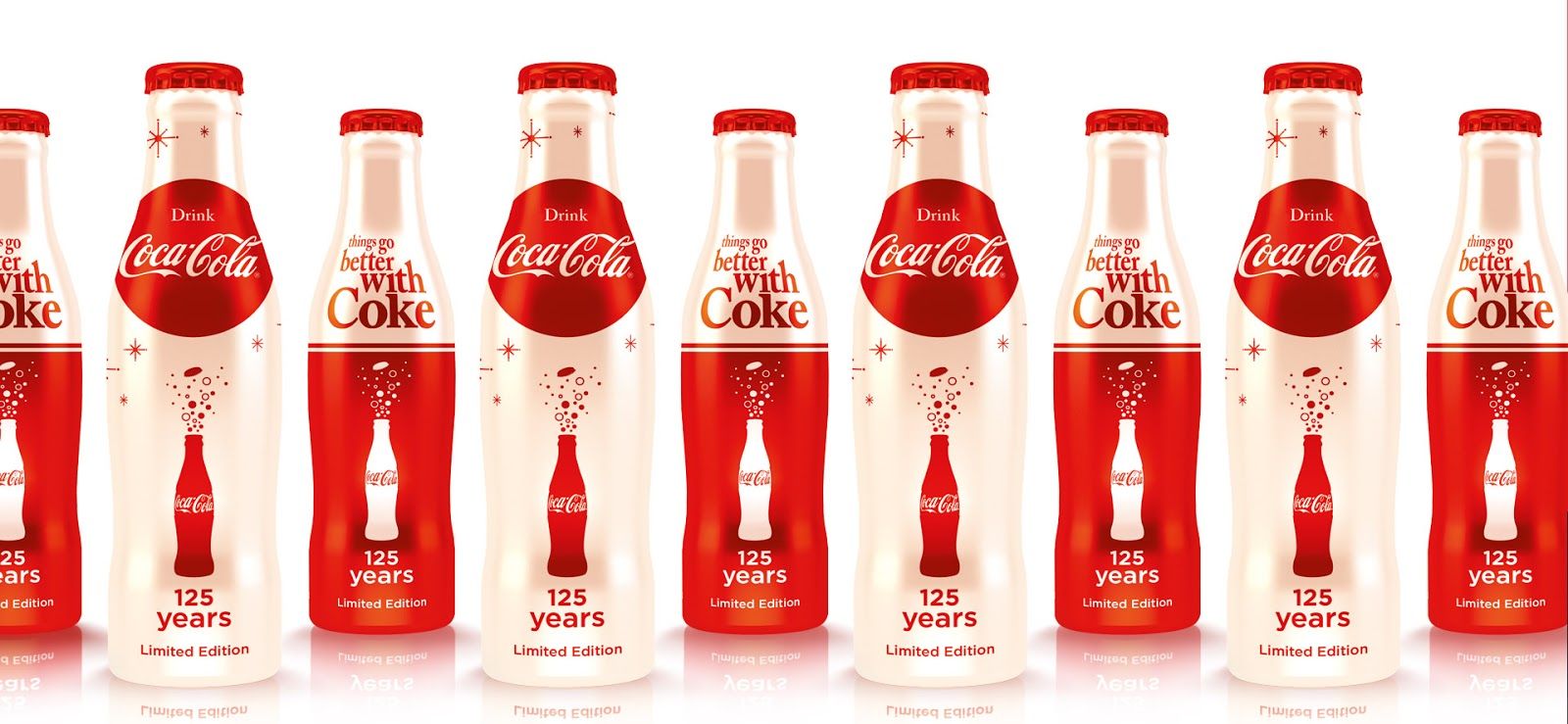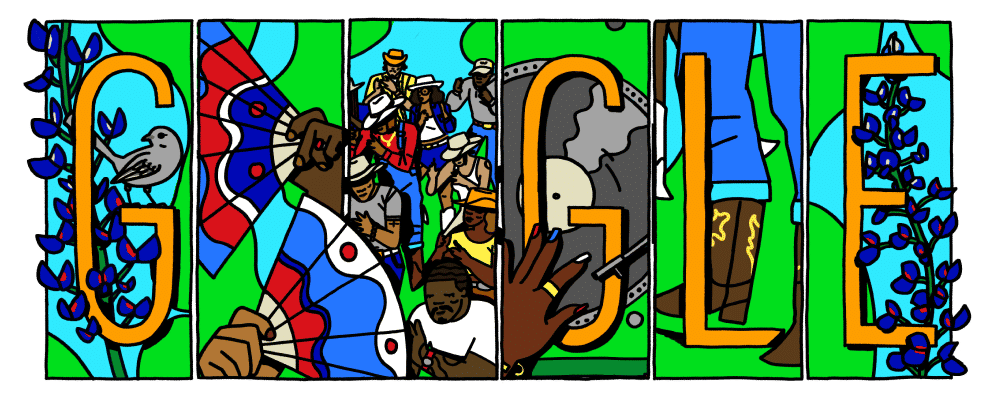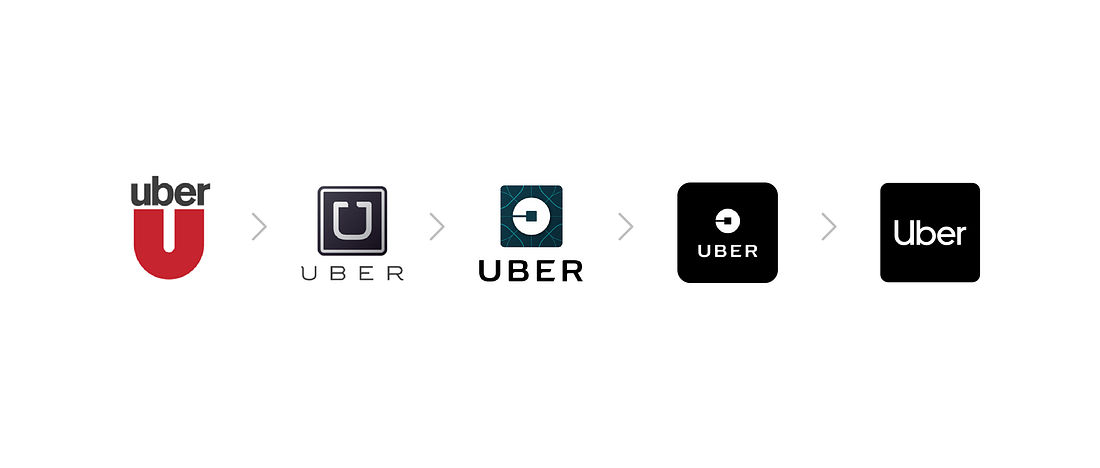
Dynamic logo helps brands navigate constant change by allowing visual identities to evolve in shape and color while staying true to their core. The difficulty for brands lies in maintaining their relevance without compromising their identity.
Exploring essential concepts and influence offers a glimpse into how flexibility naturally strengthens brand presence across industries and platforms.
Key Takeaways:
- Brands update their visuals to stay current while preserving their core identity through innovative designs.
- Updating logos enables brands to stay current while preserving their authentic identity.
- Adaptive branding approaches boost brand visibility across all industries.
- Visual identities that are adaptable have a greater effect on many devices.
Breaking Down the Concept of Dynamic Logo
According to a Statista report from April 2023, 42% of U.S. adults noticed frequent changes in logos and visual styles. The logo reflects a growing awareness of brand evolution. A changing logo represents this evolution, enabling visual identities to adapt seamlessly while maintaining the essence of a brand’s basic meaning.
The ability to balance flexibility with consistency is what truly establishes the strength of a dynamic logo. The concept is that brands adapt colors, shapes, sizes, and elements to fit various contexts and audiences.
Flexibility allows them to be themselves. Hence, the broader influence of these designs guides how brands engage with their audience.
Why Adaptable Logos Matter in Today’s Market
Exploring ‘what is a dynamic logo’ uncovers how adaptability breathes new life into brand identities. By transforming visual elements while preserving a brand’s essence, dynamic symbols create fresh connections that resonate across platforms.
Considering key implications before establishing one can reveal a brand’s genuine capacity for interaction and growth.
1. Being Flexible and Enhancing Brand
Flexible symbols have a unique ability to capture attention more effectively than their static partners. They encourage deeper interaction with the audience, ultimately fostering a sense of customer loyalty.
2. Impacting Visual Stories that Influence Brands
Graphically representing a brand’s goals, principles, and campaigns is a crucial aspect of learning how to create a dynamic logo. Such expressions convey powerful narratives that connect profoundly with consumers.
3. Stay Relevant with Logo Evolution
Adaptable logos change along with the times, just like brands. These logos constantly change to keep businesses interesting and appealing to both new and old customers.
4. Strengthening Brand Image
Innovation shines through creative dynamic logo. Embracing new technologies allows brands to enhance their visibility and distinguish themselves in a competitive marketplace.
5. Versatile Logos Boost Brand Impact
Versatile logos are compelling on social media, websites, advertisements, and products. Customizing their look boosts brand consistency and impact.
Adaptive logos reflect the changing nature of companies. Some sectors naturally benefit more from flexibility. Understanding and using flexible design helps boost brand identification and engagement.
Top Fields Where Transformative Logos Excel
Industries shaped by innovation and continuous change find a logo design mighty. Brands in these fields utilize adaptable visuals to remain vibrant and engage a diverse range of audiences. Here are industries where flexible symbols shine, and one could easily match your business’s needs.
1. Fashion
Fashion utilizes innovative logos to express individuality, set trends, and showcase the industry’s bold and ever-changing essence.
2. Automotive
Automotive brands capture speed, elegance, and innovation through adaptable designs. Designed to reflect cutting-edge technology and sleek aesthetics, these visuals engage passionate audiences worldwide.
3. Hospitality
Hospitality thrives on comfort and relaxation, with dynamic logo design enhancing immersive, welcoming guest experiences.
4. Food and Beverage
Food and beverage brands succeed by appealing to the senses and crafting attractive experiences that immediately engage consumers.
5. Entertainment
Adaptable logos are essential in the entertainment industry for captivating and engaging diverse audiences.
Various sectors may relate to this field, but creating a dynamic logo goes beyond simply understanding design. Examining logo examples that successfully connect plays a vital role in building a strong brand identity.
Famous Dynamic Logos Making Waves Worldwide
A dynamic logo by famous brands has captured the attention of graphic designers, brand strategists, and business owners alike. Exploring examples from these well-known brands provides valuable insights and inspiration for anyone seeking a deeper understanding of dynamic logo concepts.
Explore New Possibilities with Flexible Branding
Facing today’s business world demands creativity. Dynamic logo symbols provide brands with a way to remain adaptable and relevant across digital and print platforms. Choosing Night Mango from Lettersiro supports this approach. Its elegant serif style, available in regular and italic versions, suits both modern and classic layouts, enhancing fluid branding. Exploring flexible font design for a logo could be the next step toward a standout logo that genuinely fits your business.